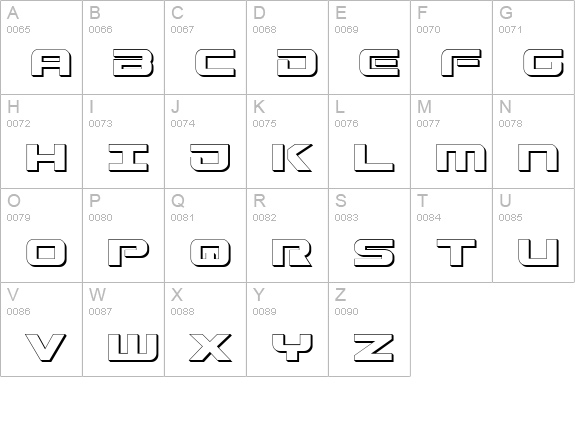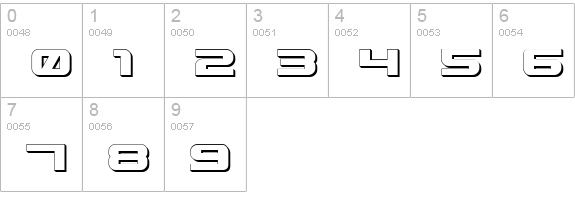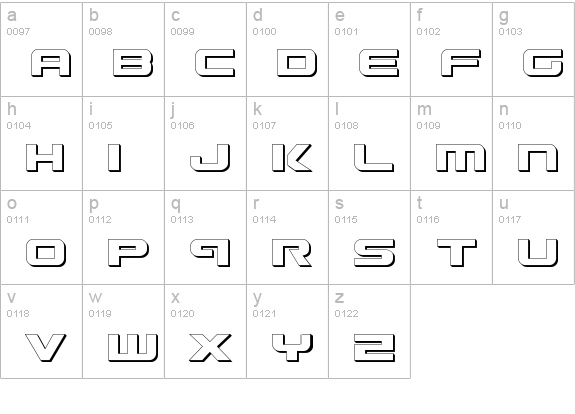
Gunship Shadow font is a bold and impactful typeface that exudes a sense of power and strength. Its sharp angles and sleek design make it perfect for creating eye-catching headlines, logos, and posters. The font's shadow effect adds depth and dimension to your designs, making them stand out from the crowd. This versatile font is ideal for a wide range of projects, from military-themed designs to futuristic sci-fi creations. Whether you're working on a video game cover, movie poster, or branding project, Gunship Shadow font will help you make a bold statement. Best of all, Gunship Shadow font is available for free download at FontsMarket.com. So you can add this striking typeface to your font collection without breaking the bank. Don't miss out on the opportunity to elevate your designs with Gunship Shadow font today!